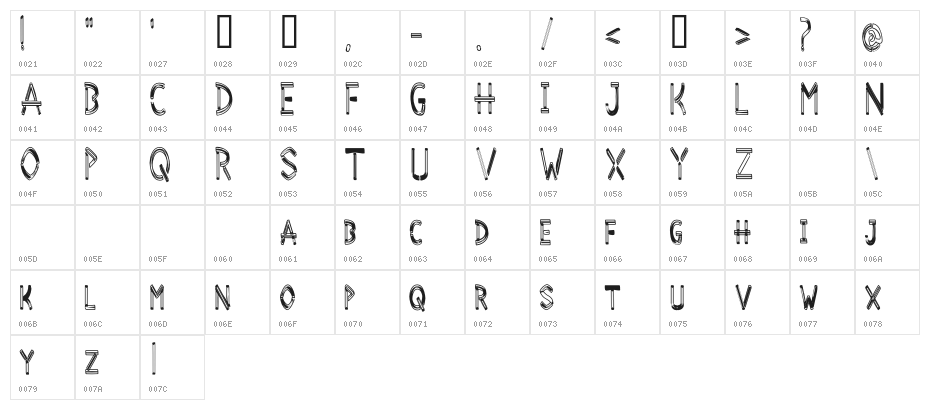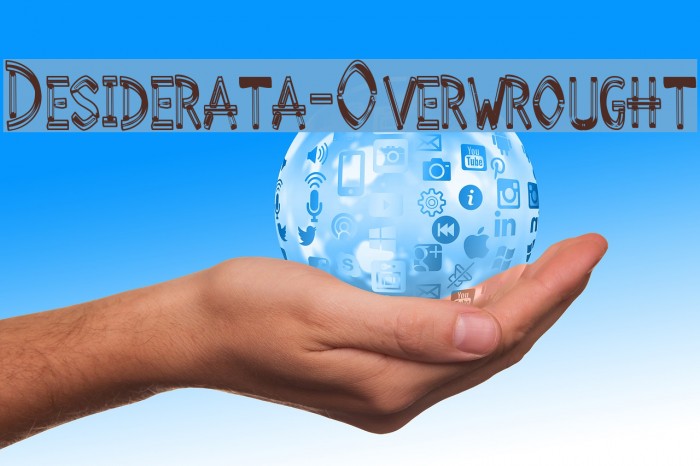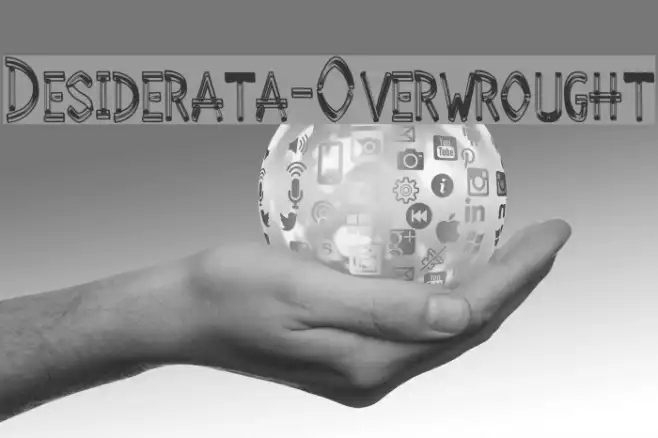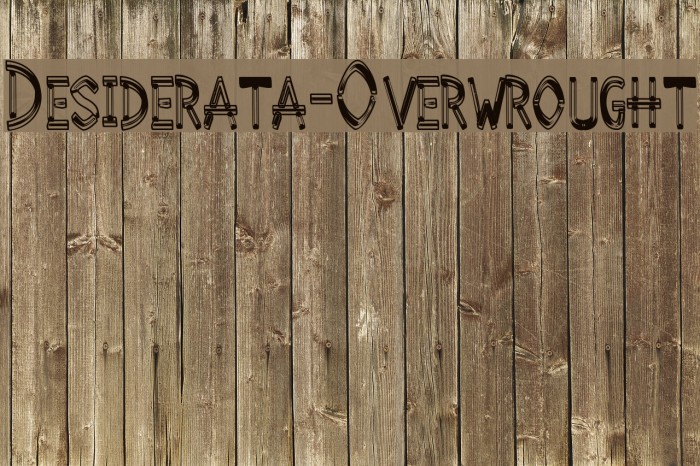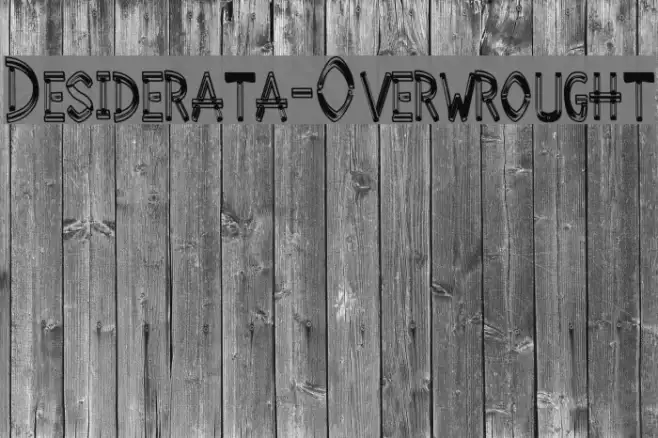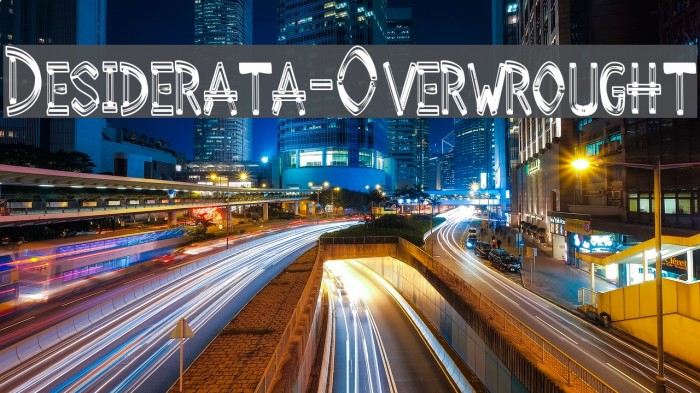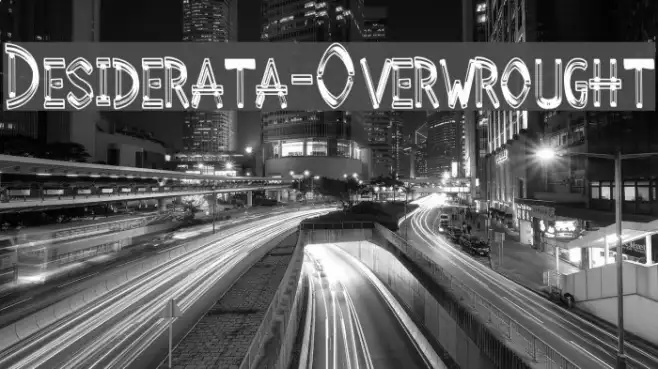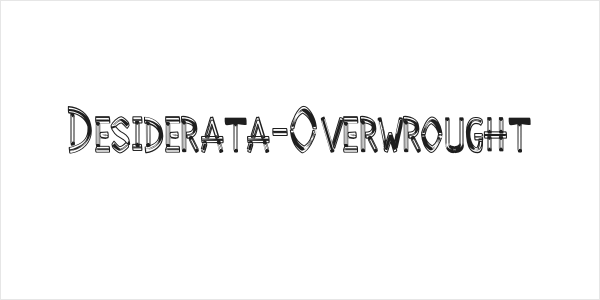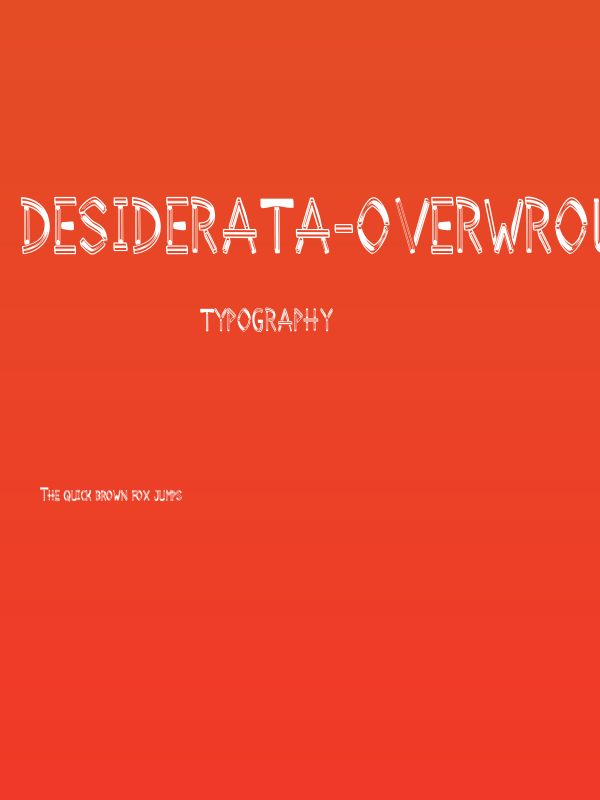
Desiderata-Overwrought Font
Desiderata-Overwrought Description
This font features a highly decorative and intricate design, characterized by bold, overlapping strokes and a three-dimensional appearance. The letters are constructed with a combination of thick and thin lines, creating a dynamic and visually engaging effect. The uppercase letters are particularly striking, with each character displaying unique embellishments that add to the overall ornate style. The font's playful and artistic nature makes it stand out, with a sense of movement and depth that captures attention. The design is consistent across the alphabet, maintaining a cohesive look while allowing each letter to have its own distinct personality.